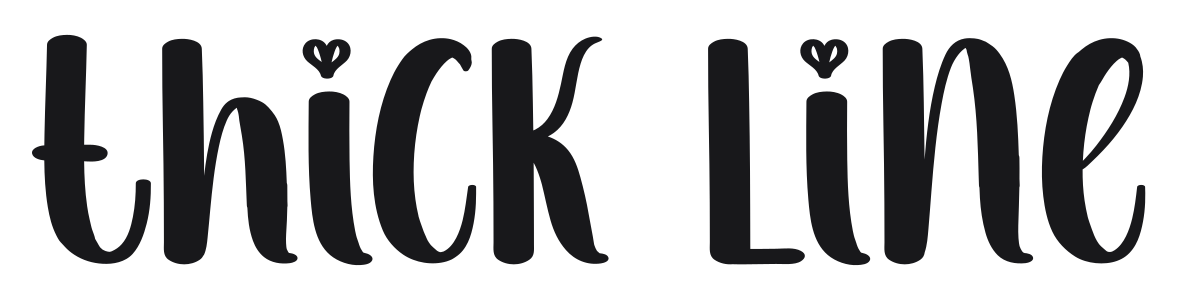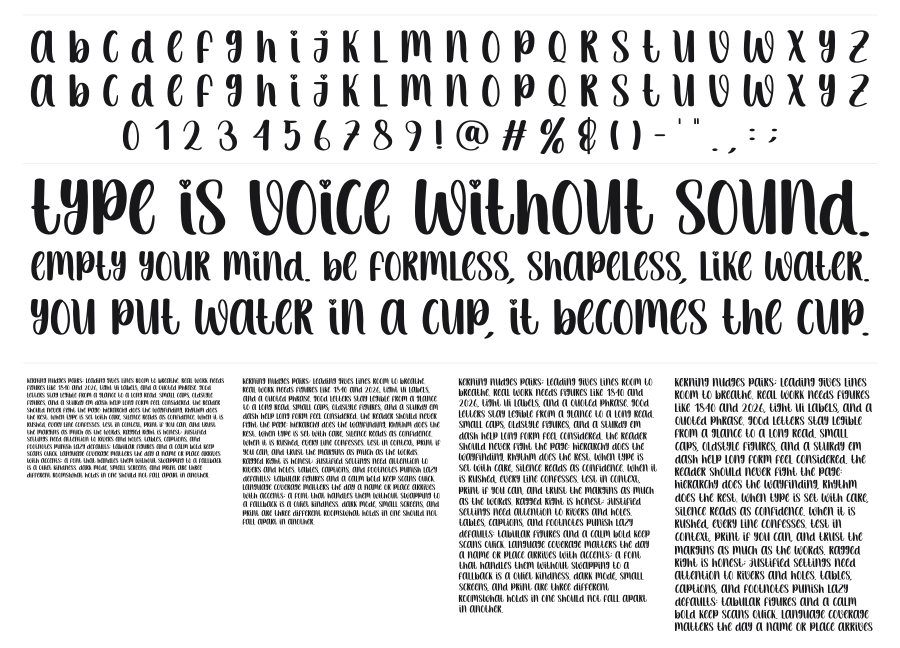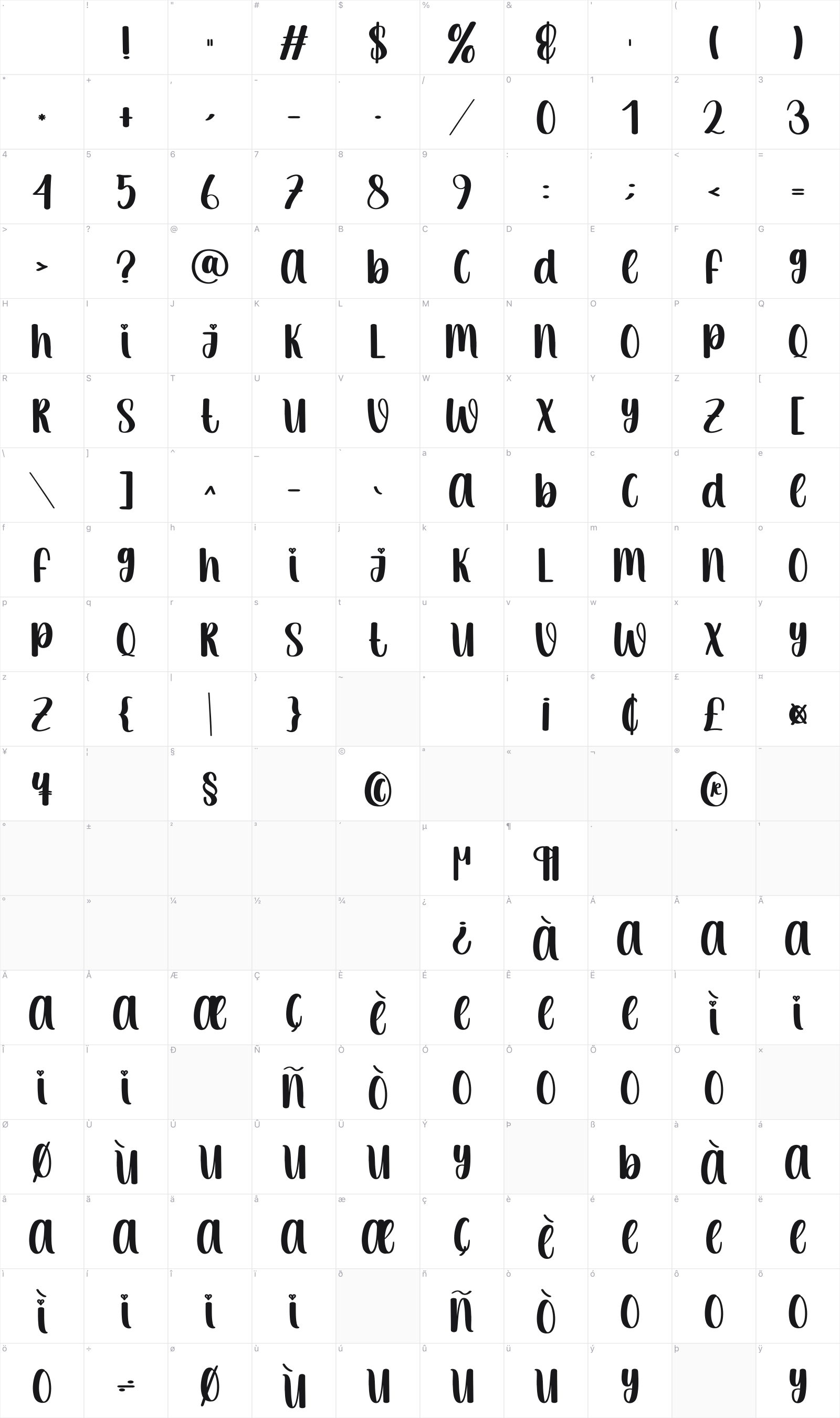
Thick Line
Thick Line is a bold casual script with a heavy, rounded stroke and a warm handwritten personality. The high stroke contrast between thick stems and thin connectors gives it energy and charm, while small decorative touches like a heart detail keep it feeling personal. It sits somewhere between a wedding invite and a bakery logo, comfortable in any context that calls for a friendly, expressive hand.